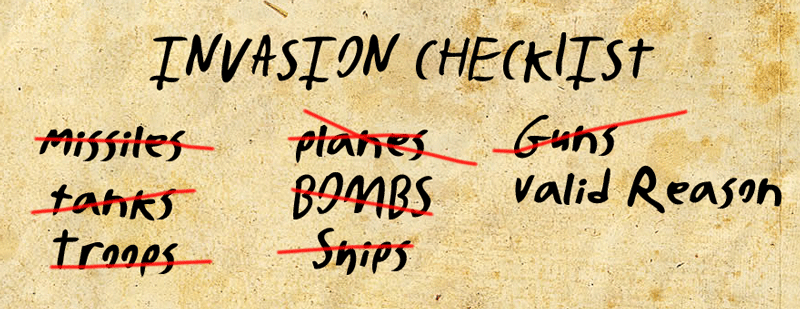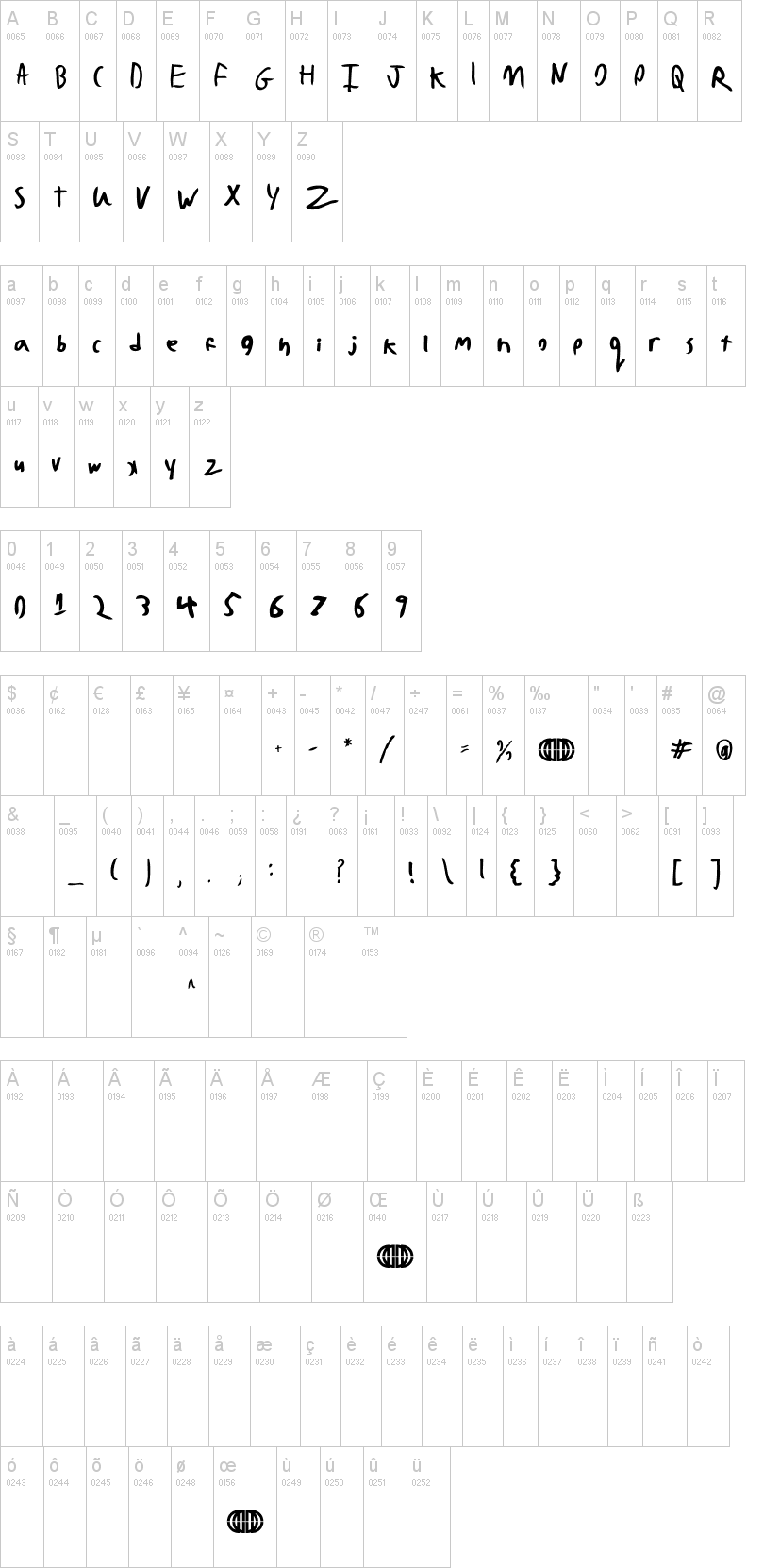
Note of the authorYou need some crappy handwriting for your next design? Too lazy to write your next ransom note? To lazy to handwrite in general, but also too proud to fake handwrite neatly? Well this font is just for you, and it says so in the title. This font has all of the symbols you need, and all the character of a handwritten note. Best of all... it's FREE!
The second font in my little handwriting series. There will be one more coming very soon.